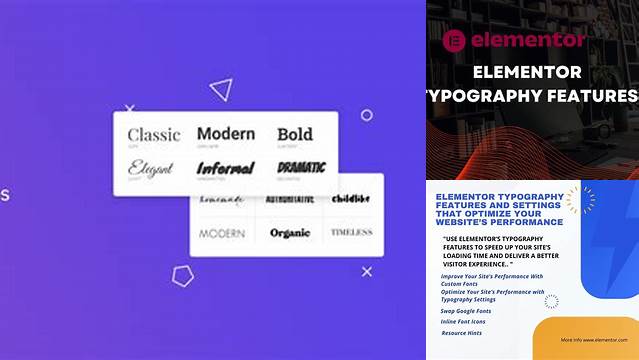
Google Fonts In Elementor: Easy Guide To Stunning Typography
Hey guys! Are you looking to enhance your website's design and make a lasting impression? One of the most powerful tools at your disposal is typography. Choosing the right fonts can significantly impact your website's readability, aesthetics, and overall user experience. And guess what? Elementor, the popular WordPress page builder, makes it incredibly easy to integrate Google Fonts into your website. Let's dive into the world of Google Fonts and explore how you can leverage them within Elementor to create stunning websites.
Why Google Fonts and Elementor are a Match Made in Heaven
Google Fonts is a vast library of free, high-quality fonts that you can use on your website without any licensing hassles. This is a game-changer, especially for those just starting or on a tight budget. The sheer variety of fonts available is mind-boggling, ranging from classic serifs to modern sans-serifs and everything in between. You're sure to find the perfect fonts to match your brand and style. Elementor, on the other hand, is a drag-and-drop page builder that simplifies website design. It allows you to create visually appealing pages without writing a single line of code. The integration of Google Fonts within Elementor is seamless, allowing you to access and use any font from the Google Fonts library directly within the Elementor interface. This powerful combination gives you unparalleled control over your website's typography, allowing you to create a truly unique and engaging online presence.
The Benefits of Using Google Fonts with Elementor
- Vast Font Library: Access hundreds of fonts from the Google Fonts library, all free to use. This gives you a massive selection to choose from, ensuring you can find the perfect fonts for your brand and website. The variety ranges from elegant and formal to playful and modern, catering to every imaginable aesthetic.
- Easy Integration: Elementor's seamless integration with Google Fonts means you can easily browse, select, and apply fonts to your website elements without any coding. No need to upload font files or mess with CSS. This user-friendly approach makes it accessible to both beginners and experienced designers.
- Improved Website Performance: Google Fonts are served from Google's global network of servers, ensuring fast loading times for your website. This is crucial for user experience, as slow-loading websites can frustrate visitors and negatively impact your search engine rankings. Optimized performance is a key advantage of using Google Fonts.
- Cross-Browser Compatibility: Google Fonts are designed to work seamlessly across all major web browsers, ensuring a consistent and professional look for your website visitors. You won't have to worry about fonts rendering differently on different browsers, which can be a common issue with self-hosted fonts. Consistent rendering across browsers is a major benefit.
- Enhanced Readability and User Experience: Choosing the right fonts can significantly improve your website's readability and user experience. With Google Fonts, you can select fonts that are easy on the eyes and match the tone and style of your content. This leads to increased engagement and a better overall experience for your visitors.
- Navigate to the Style Tab: In the Elementor editor panel, you'll see three tabs: Content, Style, and Advanced. Click on the "Style" tab. This is where you'll find all the styling options for your selected element.
- Typography Settings: Under the Style tab, look for the "Typography" section. This is where you'll find the font-related settings. Click on the little pencil icon next to the Typography heading to open the typography options.
- Font Family Dropdown: You'll see a dropdown menu labeled "Family." This is where you can select your desired font. Click on the dropdown to reveal the list of available fonts.
- Browse Google Fonts: Elementor conveniently displays all the Google Fonts within this dropdown menu. You can scroll through the list or use the search bar to find a specific font. Type in the name of the font you're looking for, or simply browse the extensive collection.
- Select Your Font: Once you've found the perfect font, click on it to select it. The font will instantly be applied to your selected element, giving you a live preview of how it looks.
- Customize Further (Optional): Elementor provides a range of other typography options, such as font size, weight, line height, letter spacing, and text transform. You can adjust these settings to fine-tune the appearance of your text. Experiment with these options to achieve the perfect look.